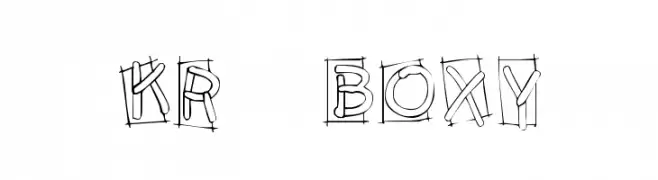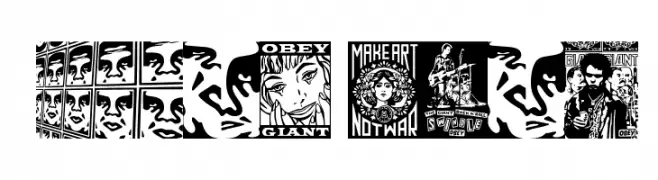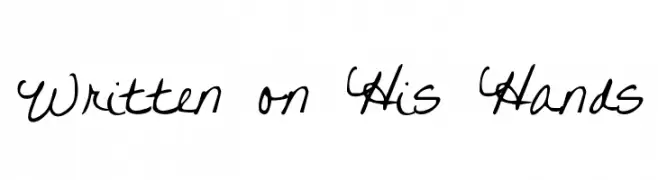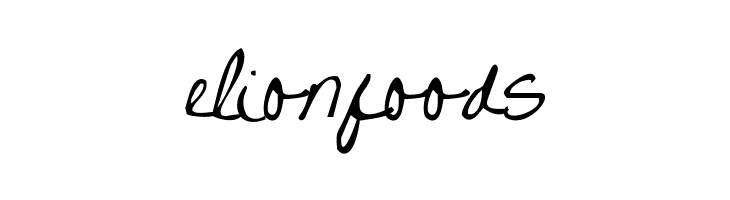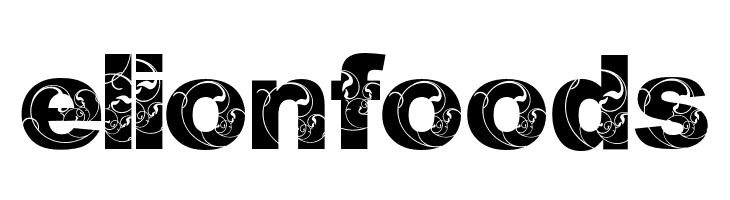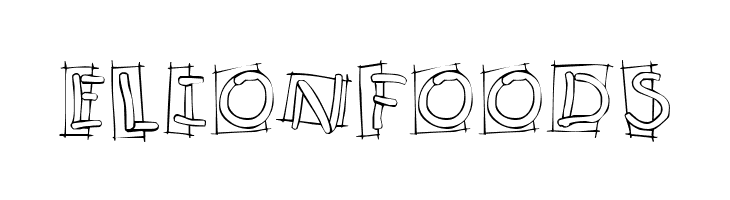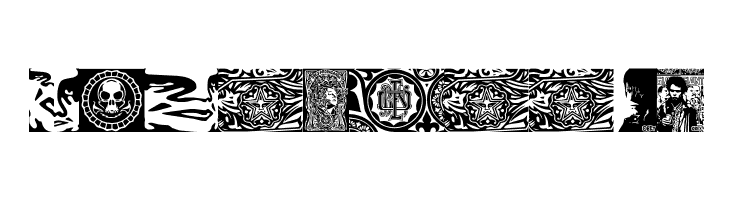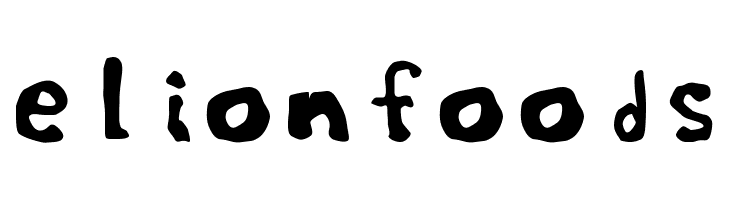
• MuchaFrenchCapitals
• Written on His Hands
( Fonts by Kimberly Geswein - kimberlygeswein.com )
A casual, handwritten cursive font with fluid strokes and dynamic character.
• Sustainable Amazon
( Fonts by Galdino Otten - galdinootten.com )
A bold, playful font with whimsical and irregular character shapes.
• OilCrisisA-Regular
A decorative font featuring vintage car illustrations for each character.
• Orial_ Bold
• KingRichard-Regular
A bold, dynamic font with a strong presence and unique character.
• KR Boxy
A playful, hand-drawn font with geometric, boxy frames around each character.
• ObeyPotpourri
( Fonts by bob istheowl http://luc.devroye.org/bobistheowl.html )
Graphic, illustrative font with each character as a distinct artwork.
• ObeyFaves
( Fonts by bob istheowl http://luc.devroye.org/bobistheowl.html )
A display font using graphic illustrations for each character.
• ObeyXL2
( Fonts by bob istheowl http://luc.devroye.org/bobistheowl.html )
A display font made entirely of intricate graphic illustrations for each character.